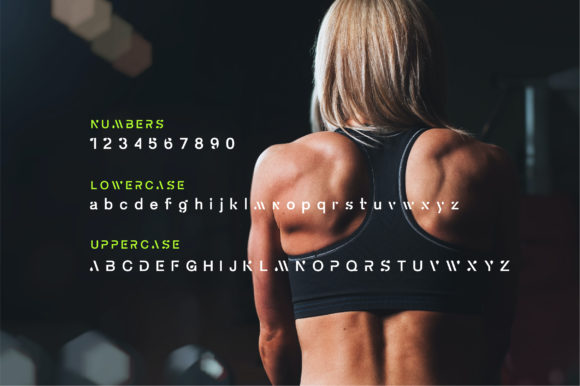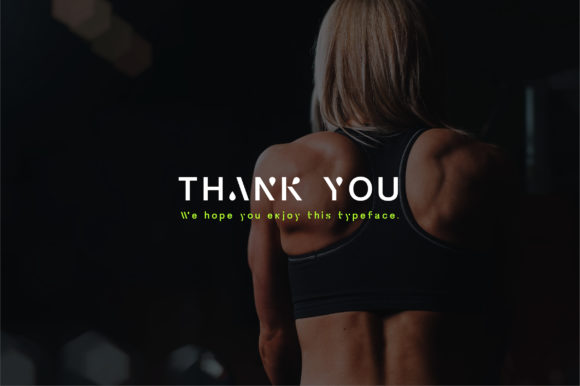
Introduction to Mosvolk Font
Do you remember that moment when you stumbled upon the perfect design resource for your creative project? The one that makes everything click into place and brings your ideas to life? For designers, finding the right font can be a game-changer. And that’s exactly what Mosvolk Font does – it adds a touch of modern sophistication to any design, making it stand out in a crowd.
With its sleek, minimalistic design, Mosvolk Font is the perfect addition to any creative project. Whether you’re working on a logo, a brochure, or even a social media graphic, this font is sure to elevate your design to the next level. Its transparent background and high-quality design make it a valuable resource for designers of all levels.
Key Features of Mosvolk Font
- Features a transparent background, allowing for easy customization and flexibility in design applications.
- Includes a wide range of characters and glyphs, making it suitable for various languages and design requirements.
- Designed with high-resolution graphics, ensuring crisp and clear typography in digital and print media.
Honest Review: Mosvolk Font
As a designer, I’m always on the lookout for high-quality design resources to elevate my creative projects. The Mosvolk Font caught my eye, and I’m excited to share my honest review.
- ✨ Unique and stylish design that sets it apart from other fonts.
- ✨ Supports transparent background, making it perfect for creative projects that require a touch of sophistication.
- ✨ High-quality design that looks great on various platforms and devices.
Any limitations:
- ⚠️ Limited character set, which may be a concern for designers who need to use the font for extensive text-based projects.
- ⚠️ Not ideal for projects that require a wide range of font sizes and styles.
Overall, the Mosvolk Font is a fantastic addition to any designer’s toolkit. While it may have some limitations, its unique design and high-quality make it a must-have for creative projects that require a touch of elegance.
Mosvolk Font
When using the Mosvolk Font, consider the following tips: use it in combination with a transparent background to create a unique design, experiment with different font sizes and colors to add emphasis, and use it in conjunction with other design resources to create a cohesive look.
The Mosvolk Font is commonly used in design projects that require a high-quality, unique font. It is ideal for use in branding, marketing materials, and creative projects where a transparent background is required.